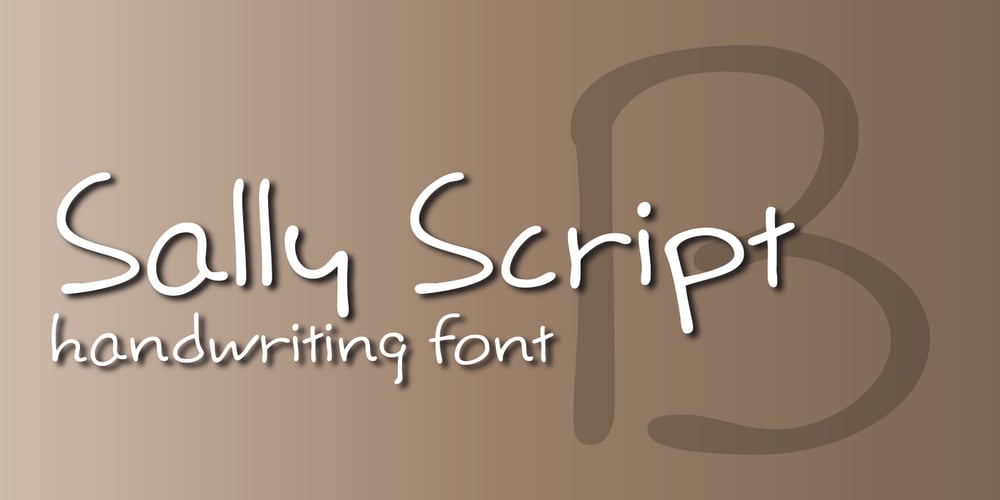
Sally Script BH Font Family was designed by Sally Muspratt and published by BluHead Studio. Sally Script BH contains 1 styles and family package options. Sally Script is based on the handwriting of a landscape designer. It’s not exactly architectural in nature, but that’s exactly where it delivers the charm! This fun design has a round, open feel which lends itself to conveying warm messages for that personal touch in cards, journals, scrapbooking, etc. Plus, the character set includes support for many languages, along with some cool ligatures!